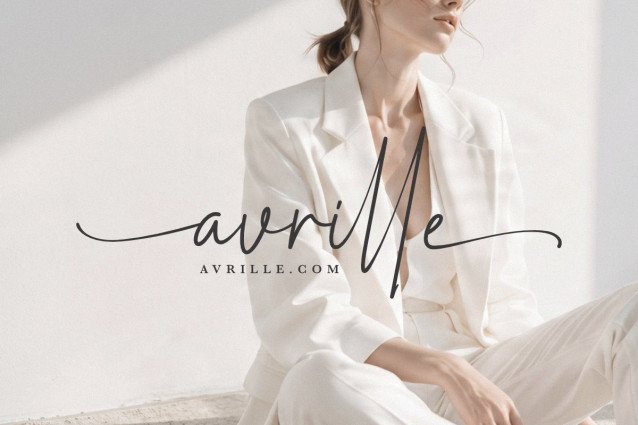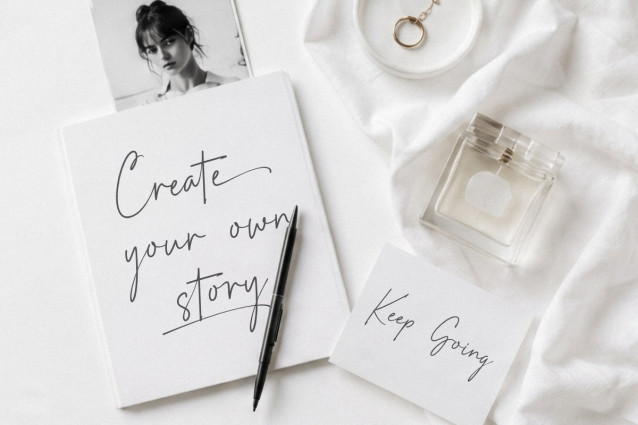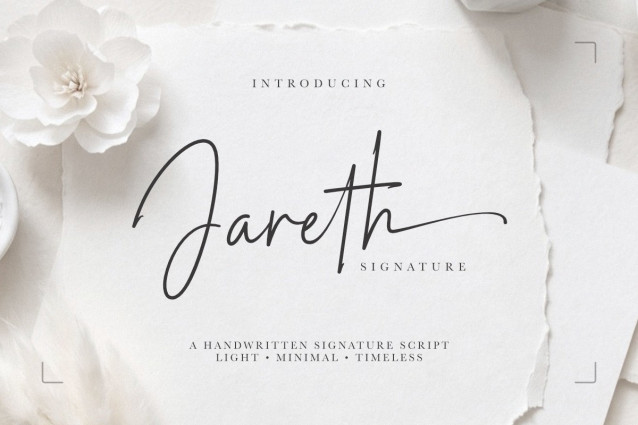
Jareth Signature Font
Jareth Signature is a handwritten signature font designed with a light monoline construction, naturally elongated proportions, and generous spacing that creates an effortless handwritten rhythm. Its tall ascenders, smooth flowing connections, and refined stroke endings give every word the appearance of a genuine handwritten signature rather than a repetitive script. The distinctive long entry and exit strokes allow words to breathe elegantly across layouts, while 170 carefully crafted ligatures improve character transitions for a more authentic handwritten flow. The SS01 alternate endings, active specifically at the end of words, create graceful finishing touches without disrupting readability, making every signature feel intentional and refined.
Created for brands that value understated luxury over excessive ornamentation, Jareth Signature brings sophistication to logos, beauty packaging, fashion branding, editorial headlines, wedding stationery, lifestyle products, and premium social media content. Its beginning and ending swash variations offer flexible composition options, helping designers create memorable visual identities that feel personal, polished, and unmistakably premium.